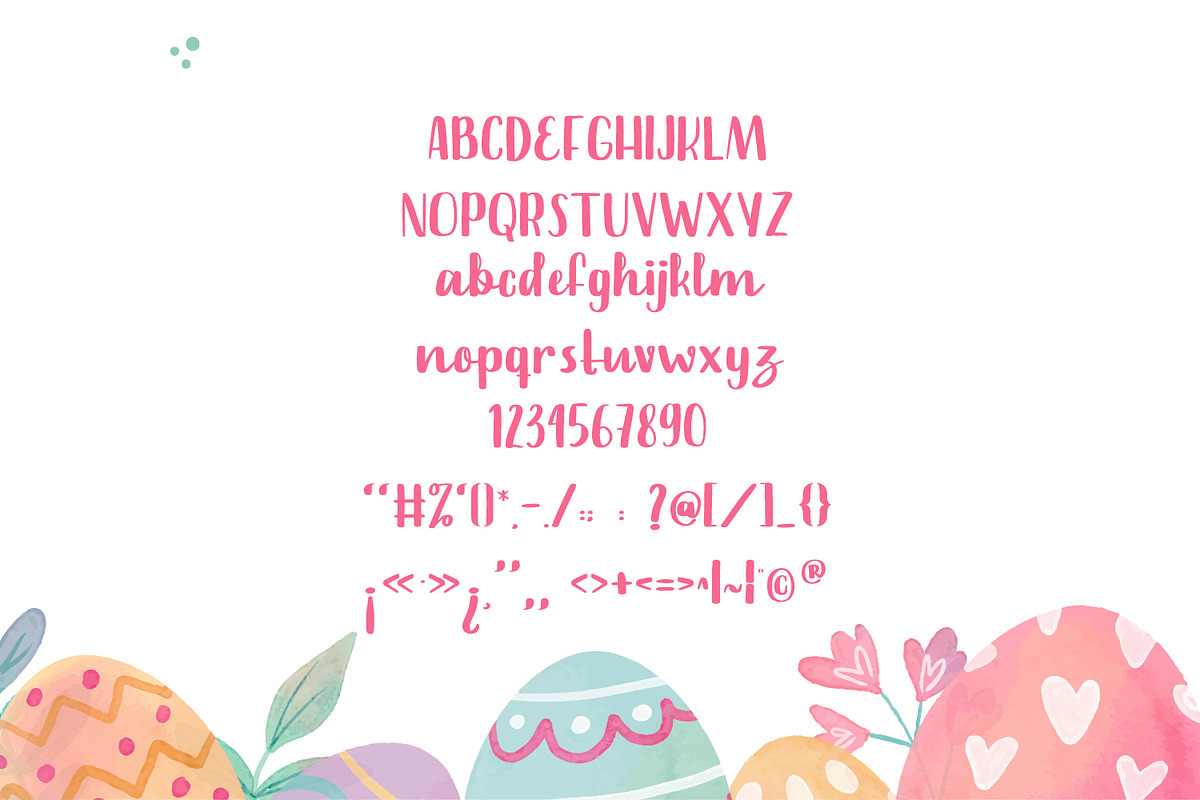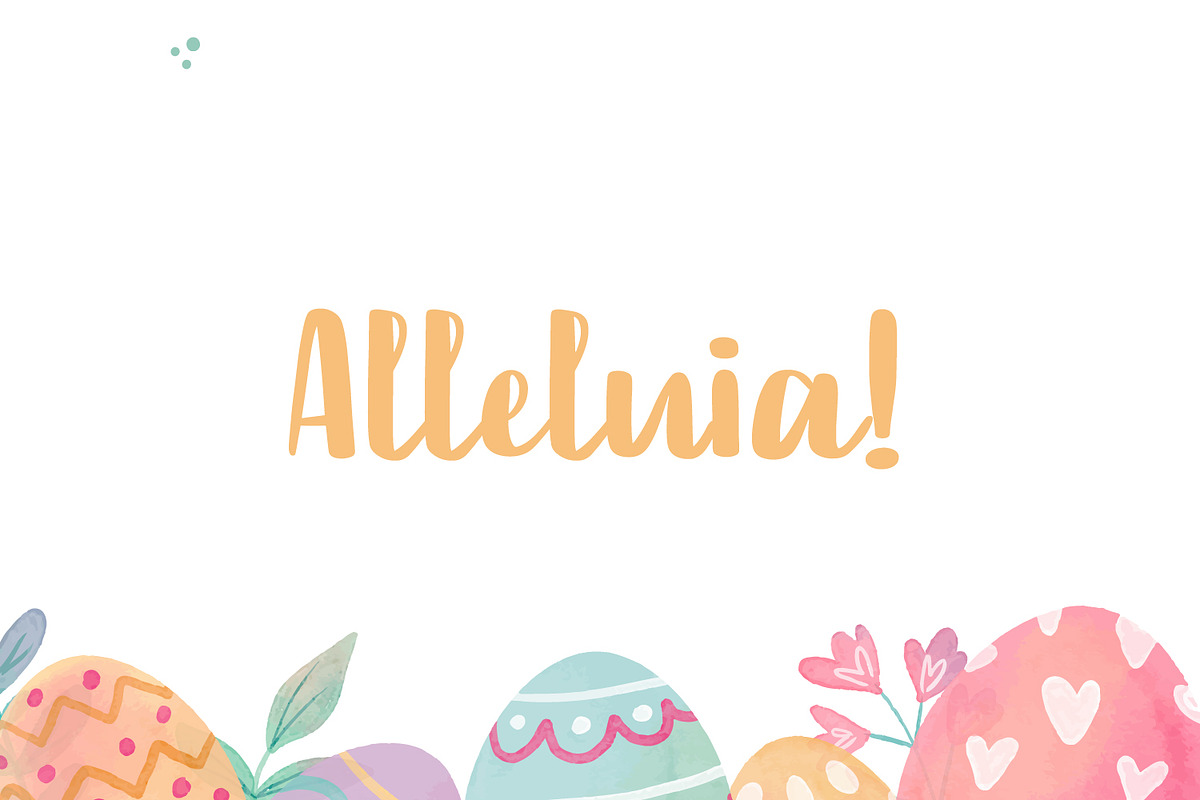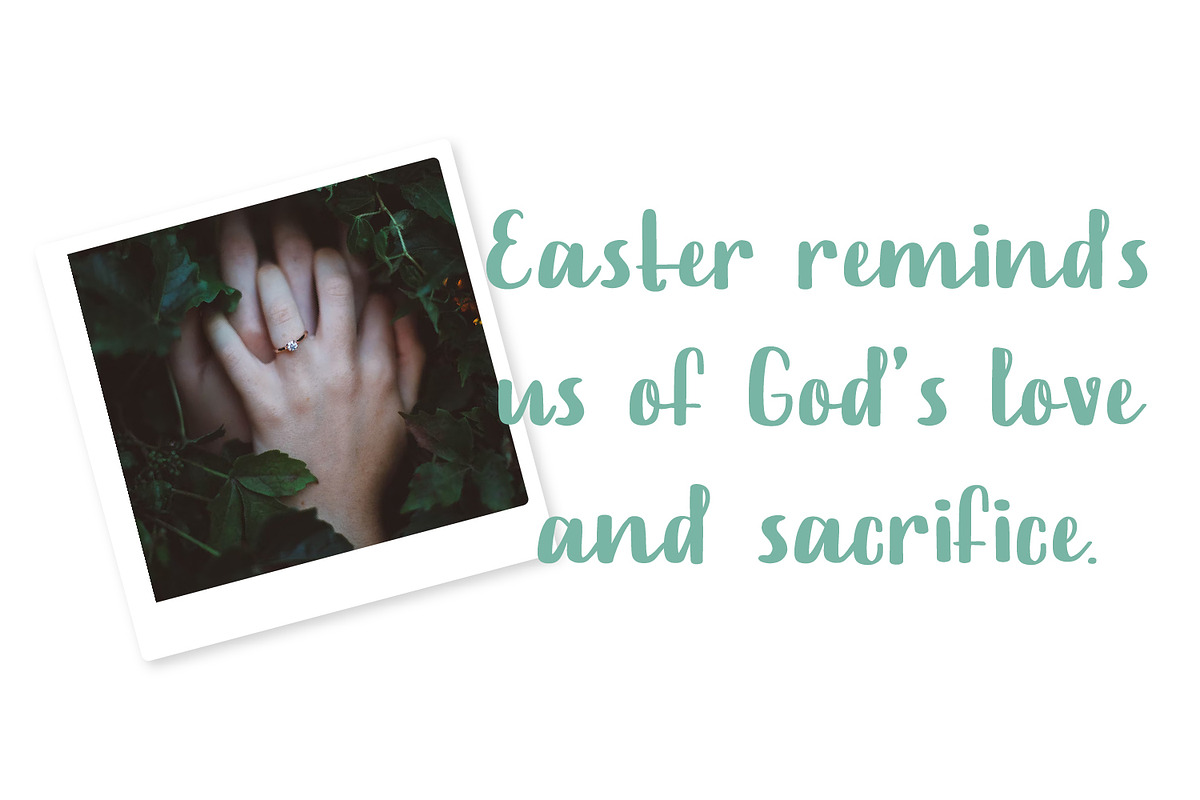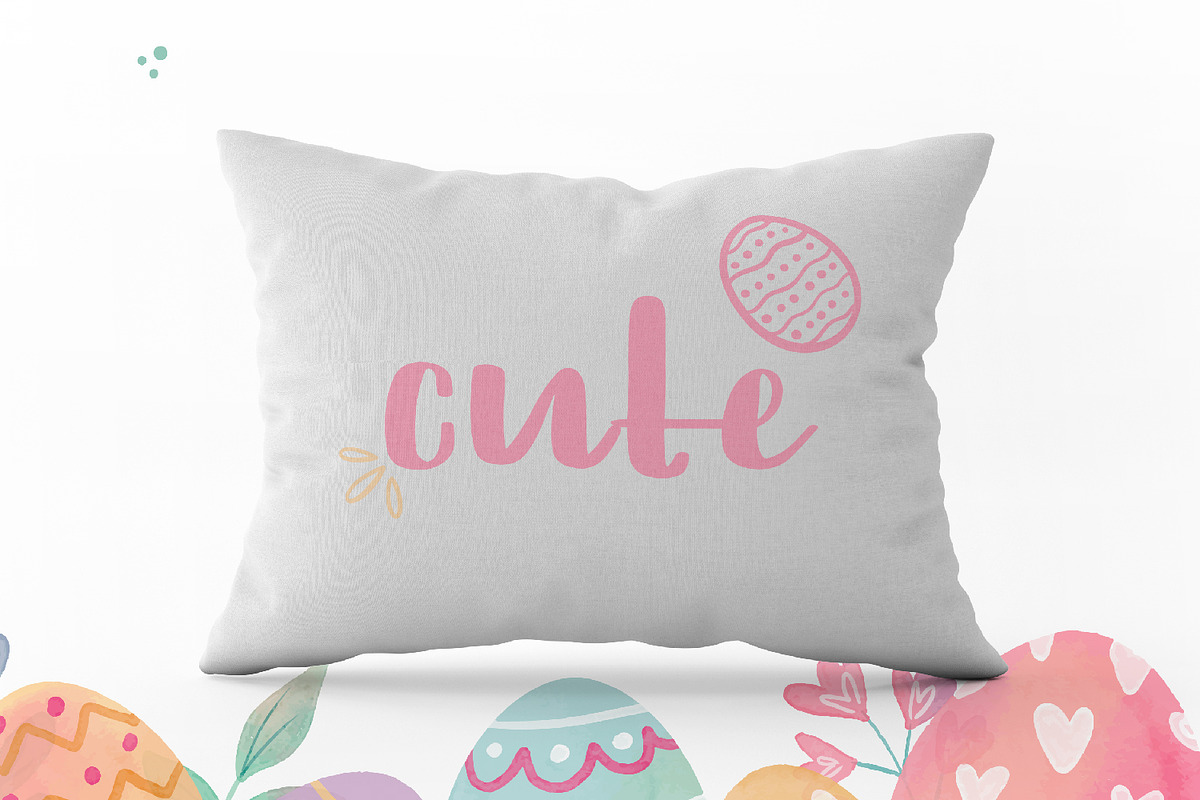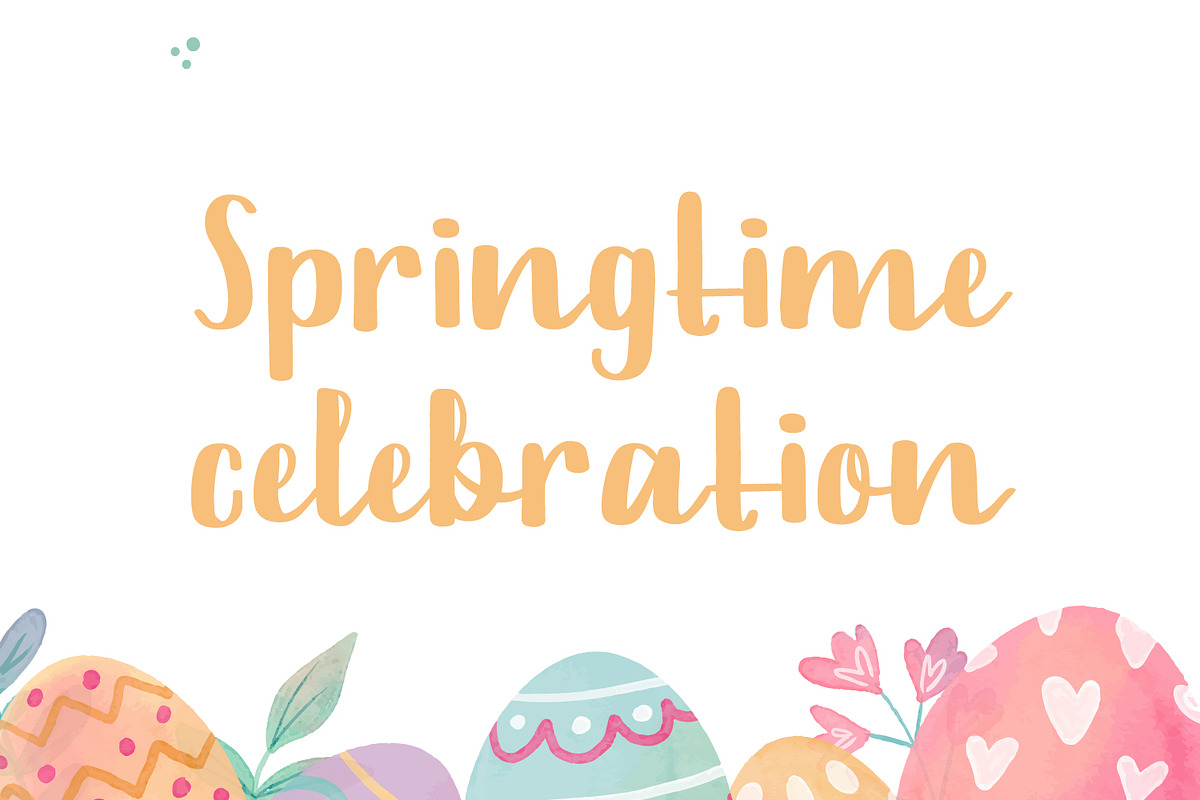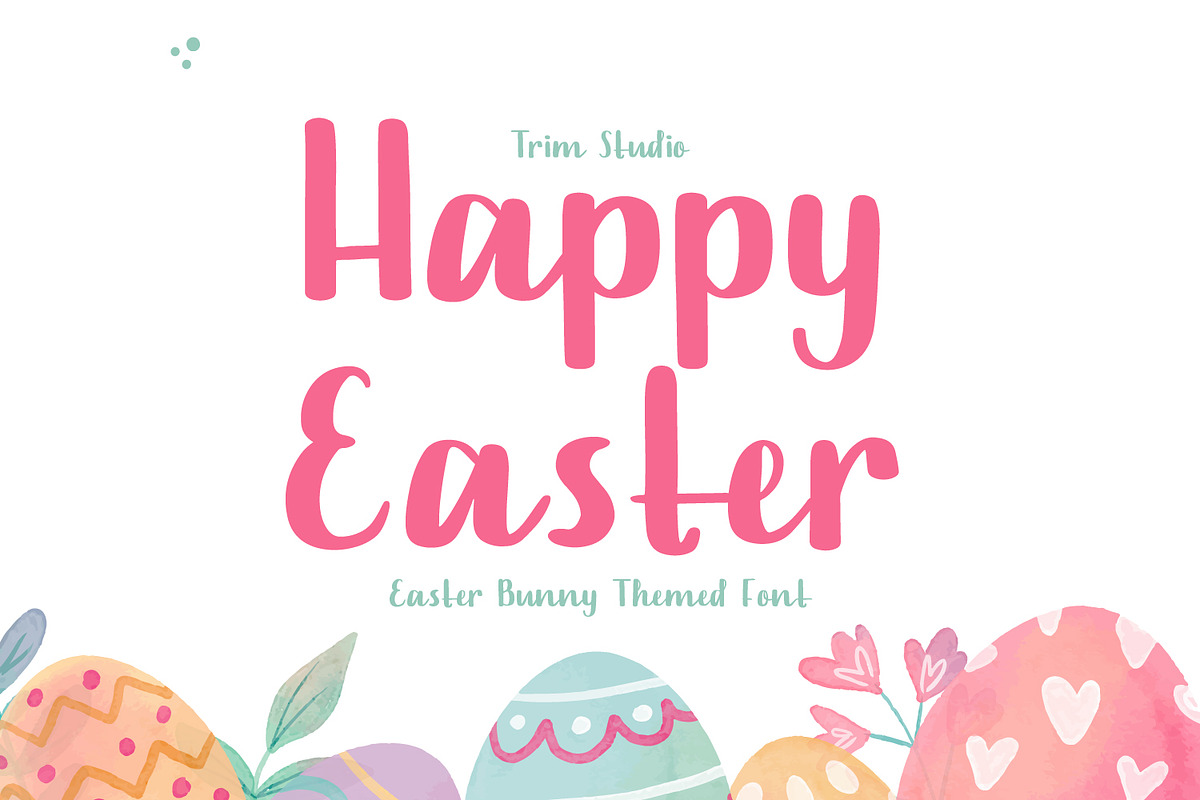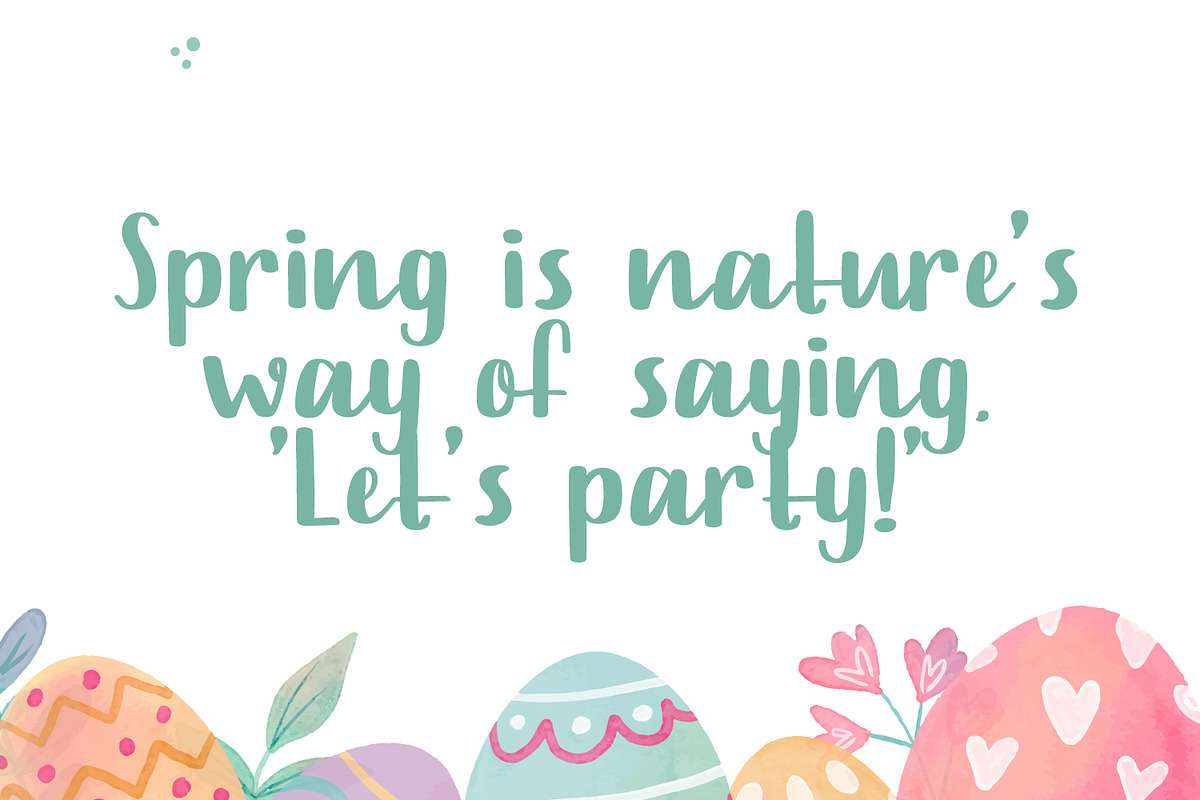
Happy Easter - Bunny Easter Theme
Happy Easter A cute script font that's perfect for Easter-themed moments is whimsical and playful. It has flowing, organic lines that resemble the curves of an Easter egg or the curling petals of a spring flower. The letters are so airy, with a gentle bounce that gives them a sense of movement and liveliness.